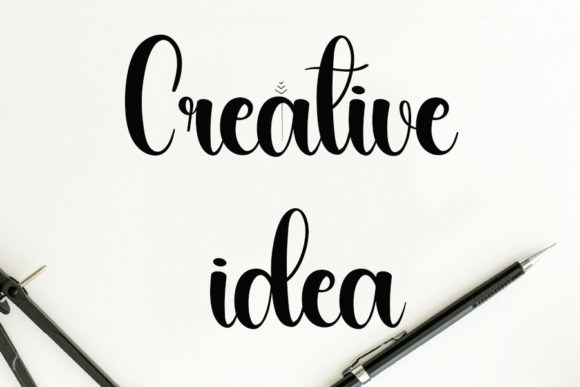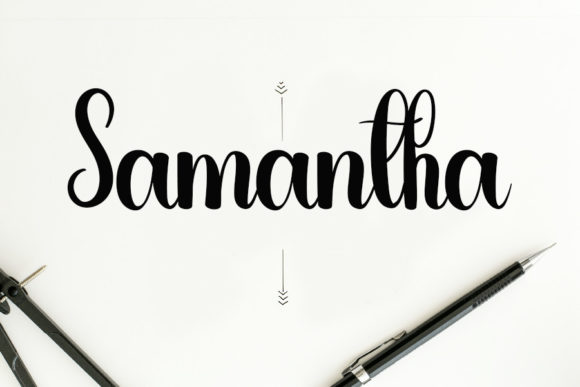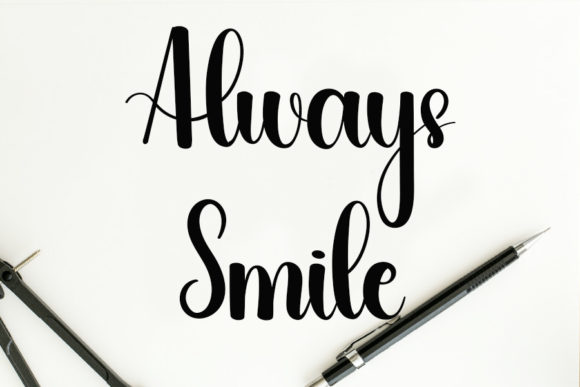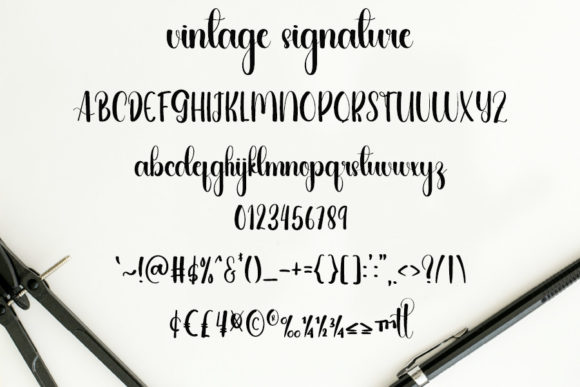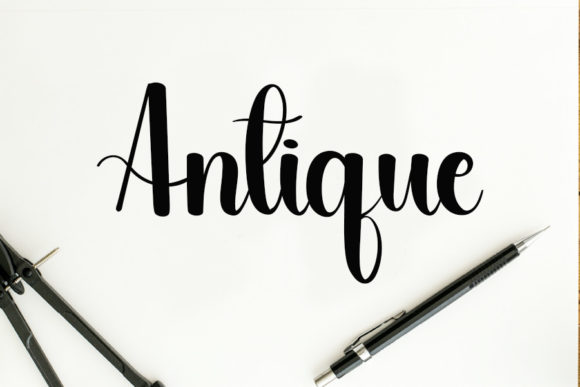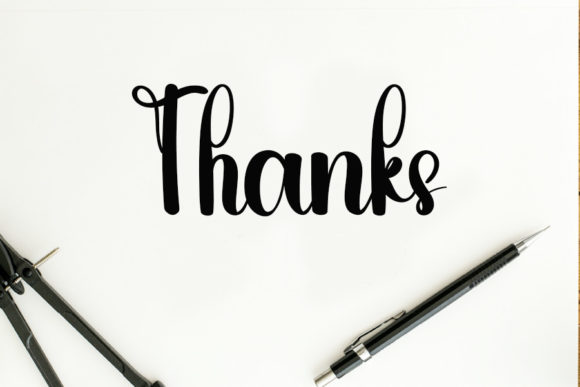
Vintage Signature Font
Vintage Signature is a captivating and stylish handwritten font that seamlessly fuses a contemporary atmosphere with the timeless allure of classic calligraphy. Its impeccable form and balanced design make it a superb choice for enhancing the beauty of your diverse range of creative projects.
Inspired by the elegance and grace of traditional calligraphy, Vintage Signature exudes a modern twist that reflects a current and sophisticated aesthetic. The meticulously crafted letterforms, characterized by fluid strokes and harmonious curves, exude an air of refinement and innovation. This harmonious blend of classic and modern elements sets Vintage Signature apart and positions it as a versatile typeface for a wide array of design ventures.
The font’s versatility ensures its adaptability across various applications. Whether it’s logos and branding, web design, social media graphics, or packaging, Vintage Signature effortlessly integrates into diverse contexts, elevating visual compositions with its polished and contemporary appearance. Its versatility is an invaluable asset for designers seeking to create captivating and impactful visuals.
Vintage Signature boasts effortless legibility, coupled with its striking aesthetics, making it well-suited for projects that demand a touch of sophistication and charm. Whether you’re designing wedding invitations, greeting cards, or other refined materials, Vintage Signature adds a layer of allure and luxury, elevating the overall aesthetic of the design.
The font’s charm also shines on digital platforms, such as websites, apps, and digital marketing materials. Its contemporary yet timeless appeal ensures that your message is communicated effectively while leaving a lasting impression on your audience.
By incorporating Vintage Signature into your projects, you harness a font that not only meets the demands of modern design but also infuses a sense of classic beauty. Its impeccable form and balanced design contribute to its ability to enhance the visual appeal of your creations, making Vintage Signature an exceptional choice for elevating your designs to new heights of elegance and sophistication.